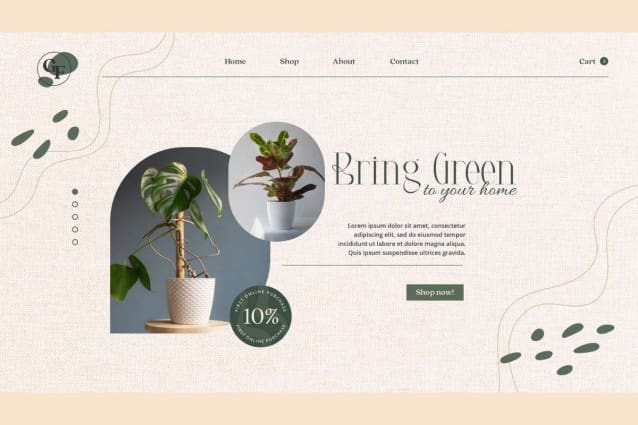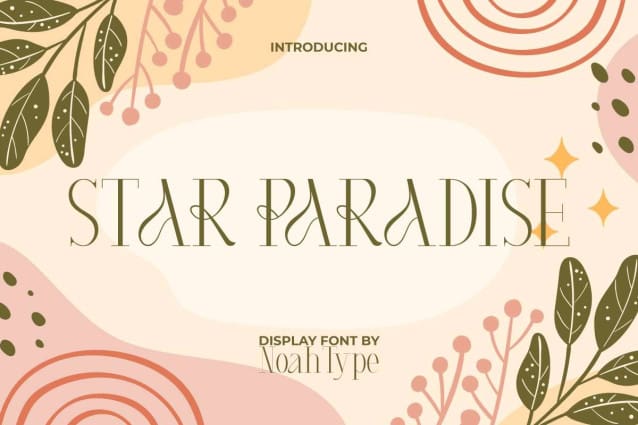
Star Paradise Font
Star Paradise Font is a stunning beautiful contemporary display font. This font is a combination of thin lines and unique curves that add to the beauty of its appearance to catch your eye. It will be good for any designs, such as brand image, business card, catalog, cover, custom design, invitation, label, product packaging, quote, signage, stationery, web, and more!
Star Paradise Font includes full set of Uppercase and Lowercase Basic Characters, Numerals, Punctuation, and Symbol. The characters of this font will give luxury and stylish looks, also a perfect choice for many industries, such as advertisement, beauty product, café, event or wedding organizer, fashion, jewelry, perfume, printing, publishing, spa and salon, etc.